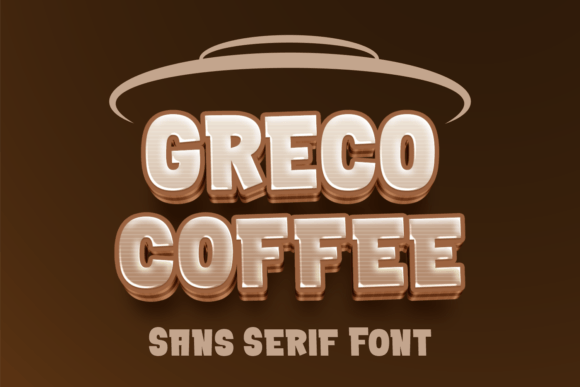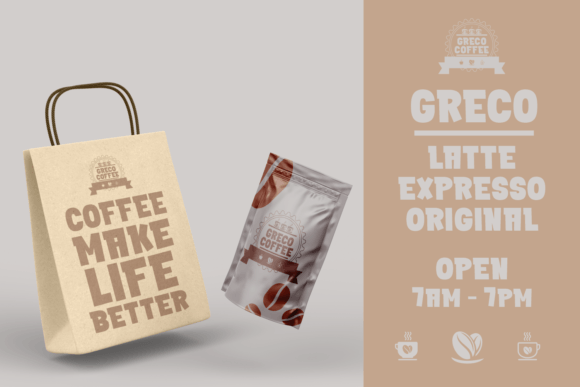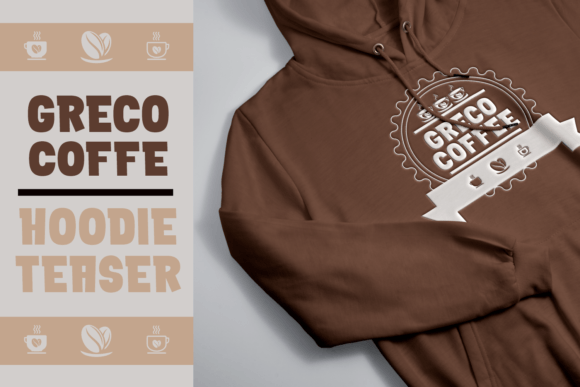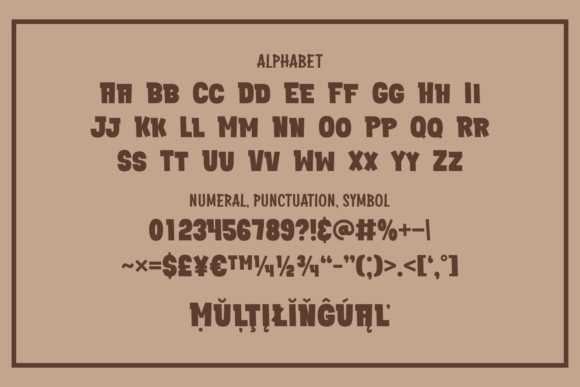
Wake Up Your Designs with the Perfect Cup
As a designer, you know that finding the right font can be the difference between a mediocre design and a masterpiece. Have you ever been stuck in front of a blank canvas, searching for the perfect font to bring your idea to life? That’s where the magic happens – when you stumble upon the perfect combination of style and functionality. For me, that moment came when I discovered the Greco Coffee Font, a bold and thick font that instantly made me excited to create.
The Greco Coffee Font is a game-changer for designers, offering a unique blend of fun and creativity that’s perfect for branding and packaging projects. Its chubby design is sure to grab anyone’s attention and leave a lasting impression. Whether you’re working on a food or beverage brand, the Greco Coffee Font is a valuable addition to your design toolkit, providing endless possibilities for creative expression.
Greco Coffee Font Key Features
- Font Family: Greco Coffee
- Unique Characteristics: Distinctive coffee cup icon and authentic Greek coffeehouse feel, ideal for food and beverage branding
Greco Coffee Font Review
Overall, I think Greco Coffee Font has some great qualities, but also some areas that could be improved.
- Unique and modern design that catches the eye. Greco Coffee Font has a distinct feel to it that makes it stand out in a crowded market.
- The font’s curves and lines are well-balanced, making it perfect for branding and marketing materials.
- The font is highly customizable, allowing users to easily adjust the style to fit their specific needs.
- Greco Coffee Font can be a bit too ornate for certain applications, such as body text. It’s best used for headlines and titles.
- The font may not be as readable on certain devices or screen sizes, due to its complex design.
- The font family is relatively small, with only a few weights and styles available.
Overall, I would say that Greco Coffee Font is a great choice for designers looking to add some visual flair to their projects. However, it’s not a one-size-fits-all solution and should be used judiciously. With a bit of creative restraint, Greco Coffee Font can be a powerful tool in your design arsenal.
The Greco Coffee Font is ideal for designing coffee shop menus, coffee packaging, and social media graphics. It can also be used for branding and marketing materials, such as business cards and brochures.
To get the most out of the Greco Coffee Font, use it in combination with other design elements that evoke a coffee shop atmosphere, such as images of coffee cups and coffee beans. You can also experiment with different font sizes and colors to create a unique and eye-catching design.